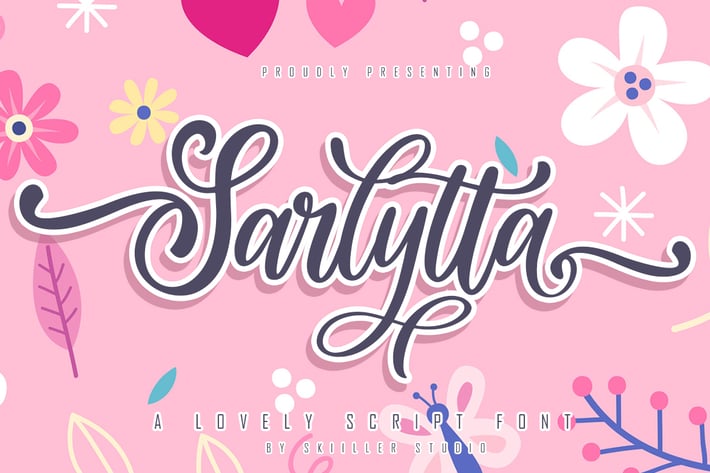
Sarlytta A Lovely Script Font
Sarlytta A Lovely Script Font with a modern and cool style designed with many features more than 200+ alternate encoded PUA and more than 400+ GLYPHS, suitable for promotion, business, company, clothing, wedding and more
+ more than 400+ of glyphs
+ Ligature
+ Styliestic Alternate for Uppercase and lowercase
+ Stylistic set for lowercase
+ Stylistic set for Ending
+ Basic Latin Language Support (AÀÁÂÃÄÅCÇDÐEÈÉÊËIÌÍÎÏÑOØÒÓÔÕÖUÙÜÚÛWYÝŸÆß )